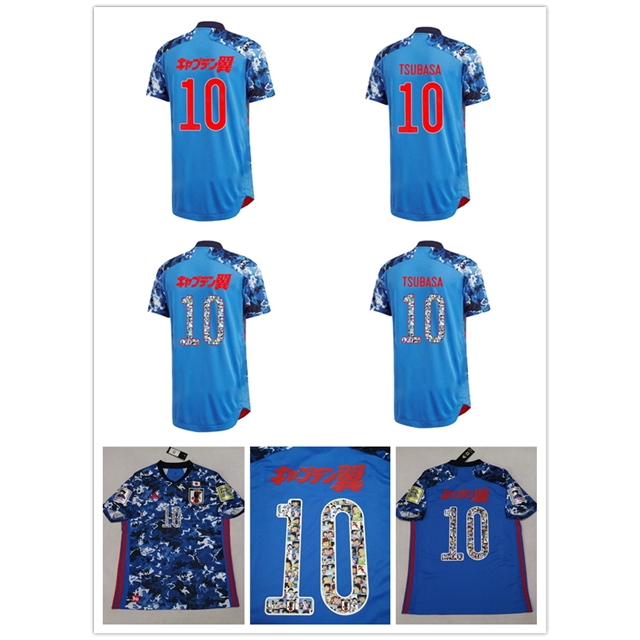
Football Jersey Shirt Fonts, Indeed recently has been hunted by consumers around us, perhaps one of you personally. People now are accustomed to using the internet in gadgets to view video and image information for inspiration, and according to the name of this article I will discuss about
2019 2020 Men S Japan Football Jersey Home Captain Tsubasa Cartoon Number Fonts 10 Tsubasa 7 Shibasaki Nakajima Jerseys Shopee Malaysia Indian Cricket Jersey With My Name
Indian cricket jersey with my name. How to make football player name set from ttfotf font. A selection of the most interesting fonts we are going to see during this football season theres no such a thing like a cool stylish lettering on a football shirt. Football jersey font by sarah hurley purchase includes.